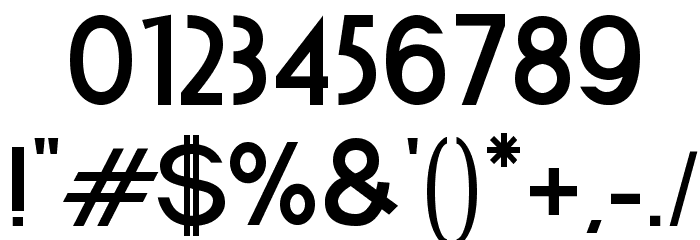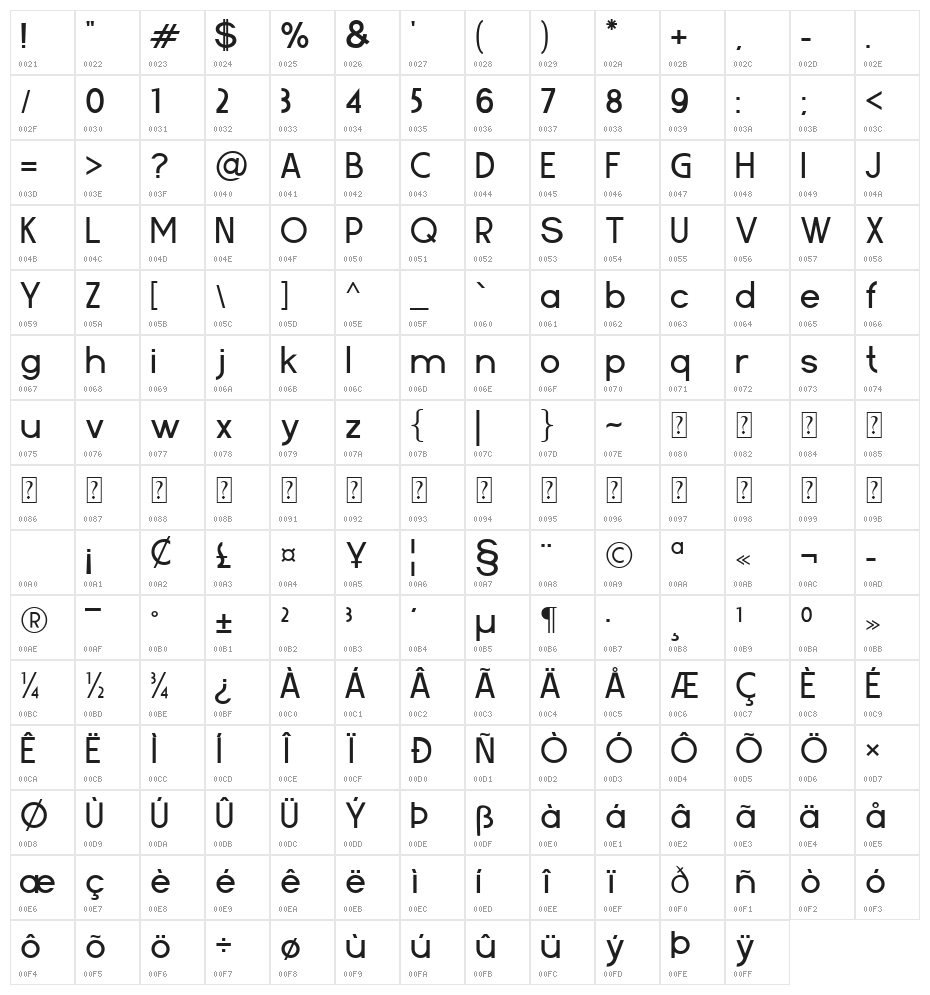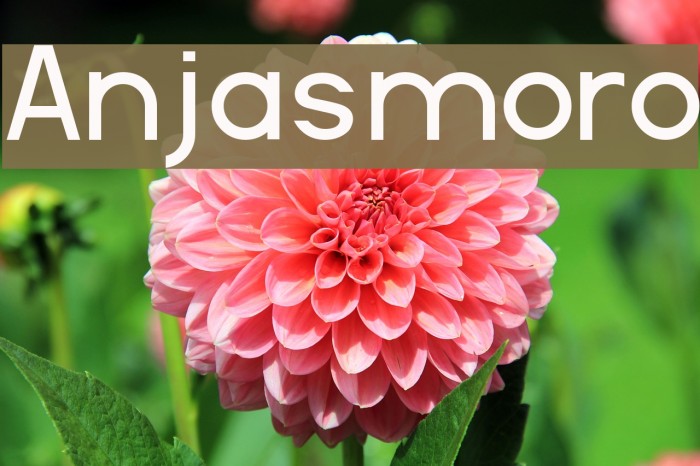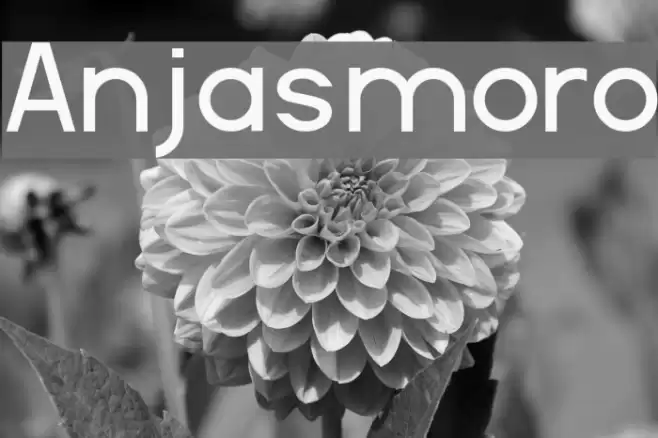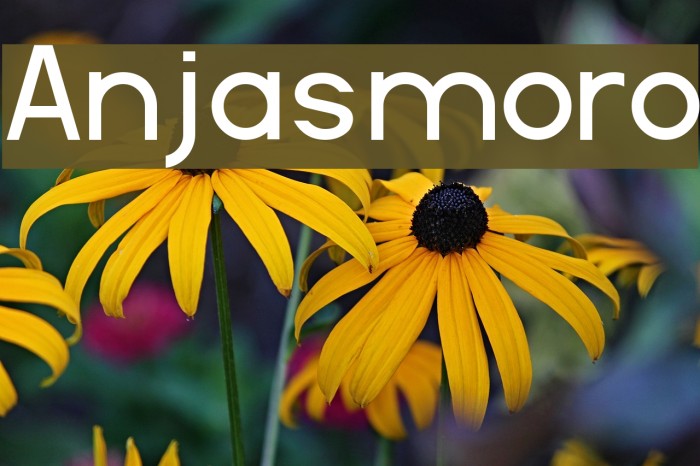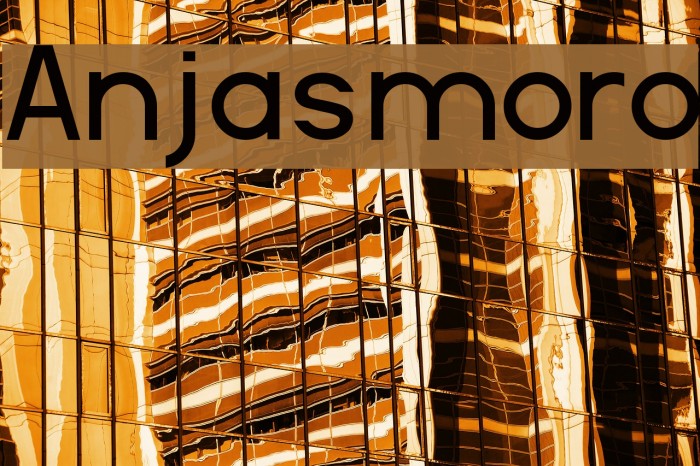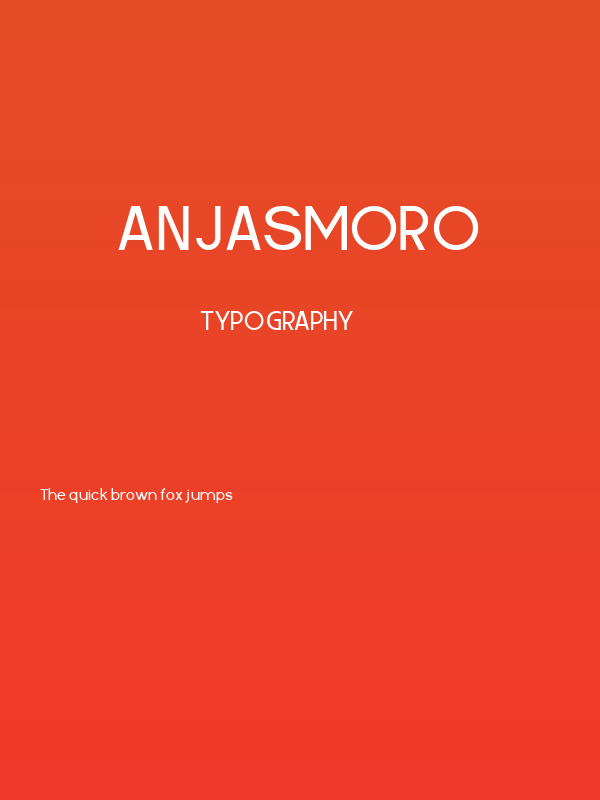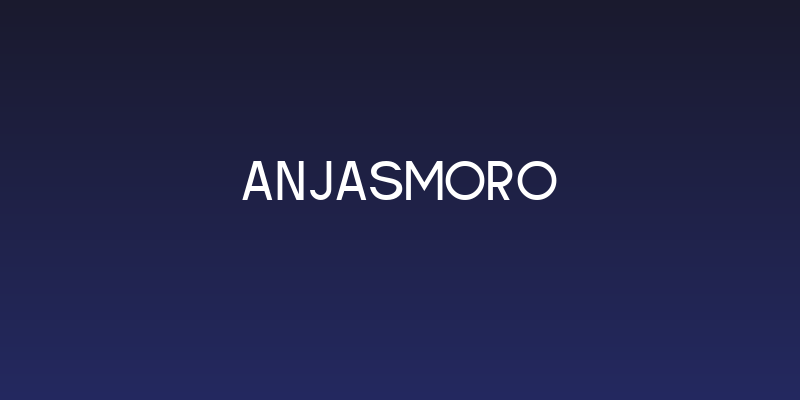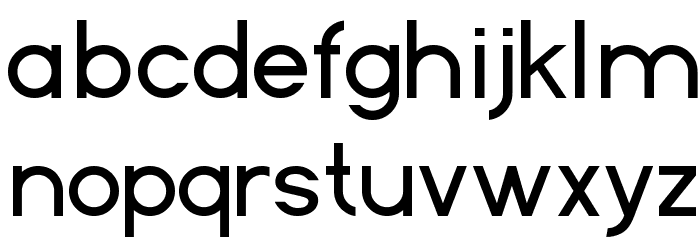
Anjasmoro Font
Anjasmoro Description
This font features a clean and modern sans-serif design with smooth, rounded edges and uniform stroke widths. The characters are well-balanced, offering a harmonious look that is both professional and approachable. Its geometric shapes lend a contemporary feel, making it versatile for various applications. The uppercase and lowercase letters maintain consistent proportions, while the numerals and special characters are clear and easily legible. This font's simplicity and elegance make it suitable for both digital and print media.